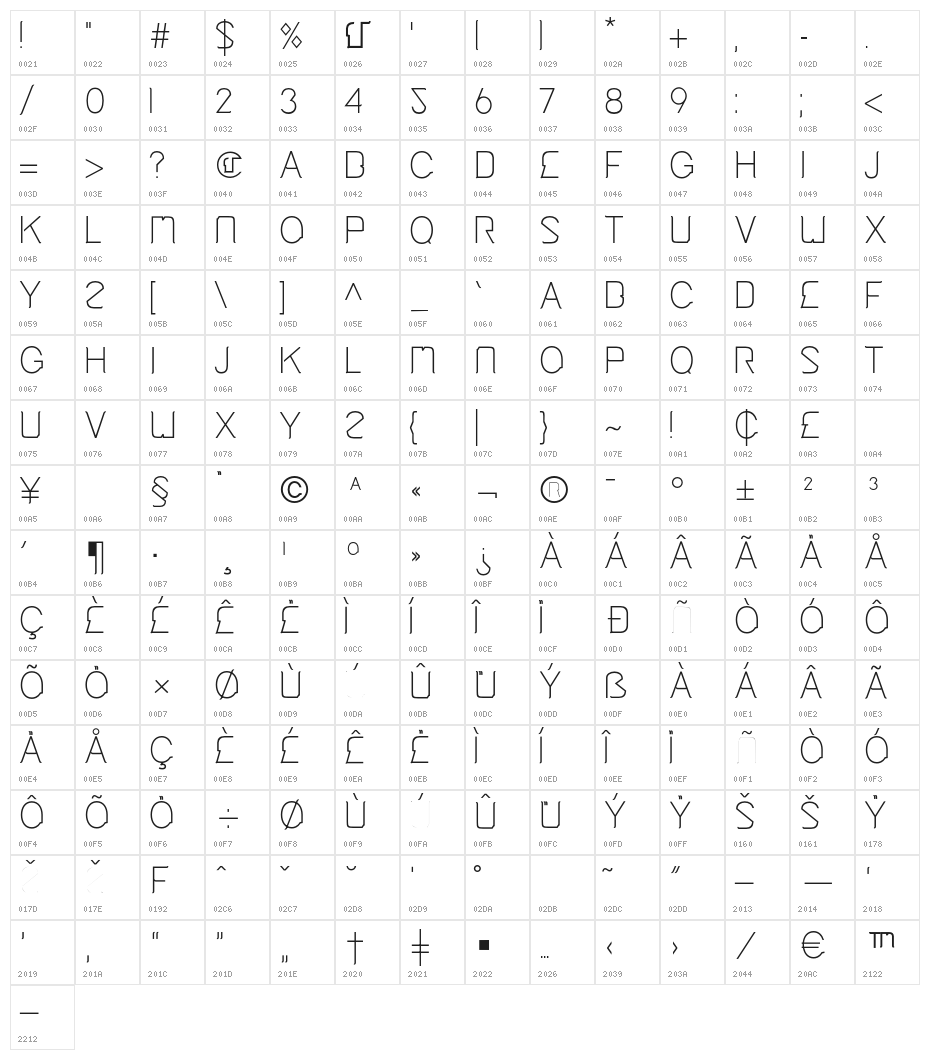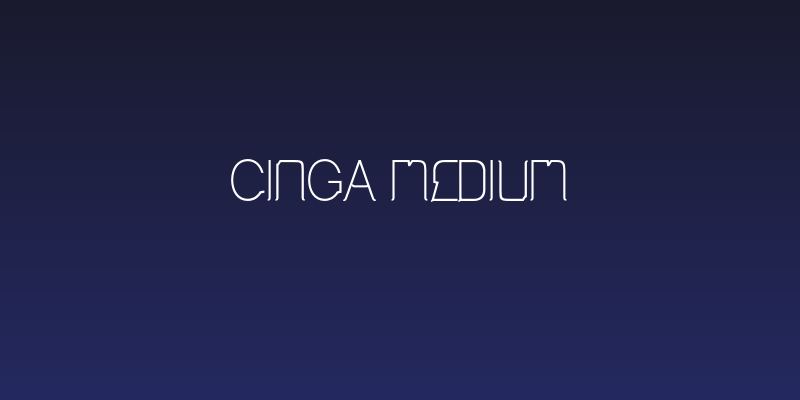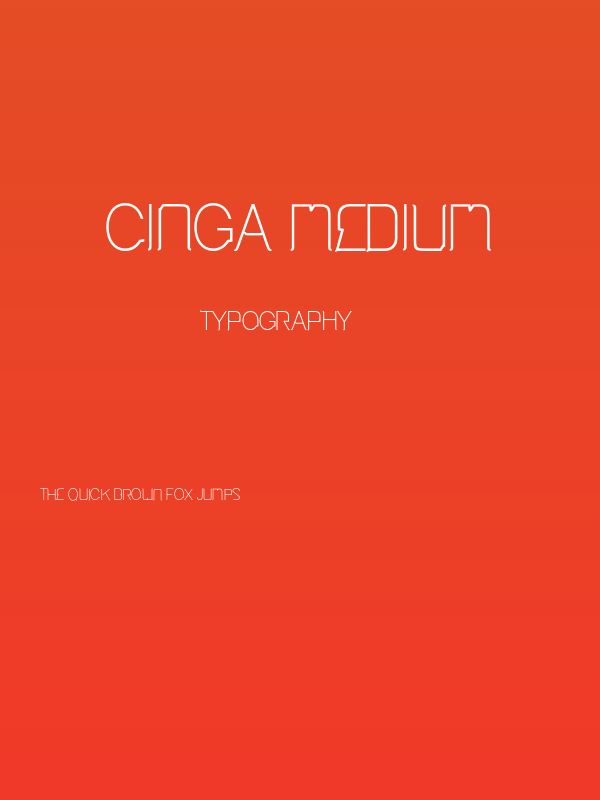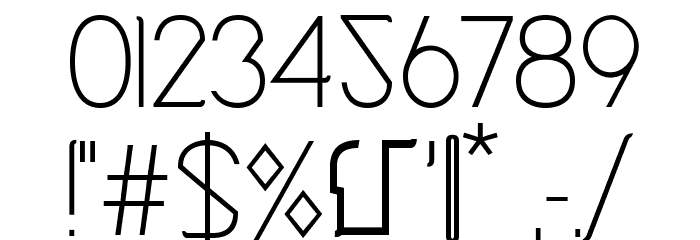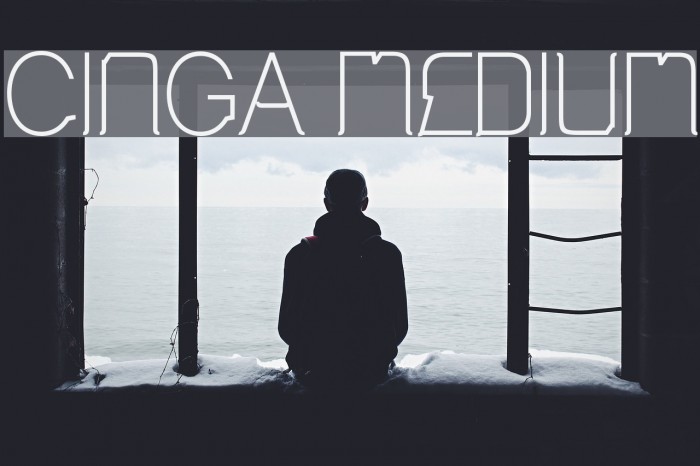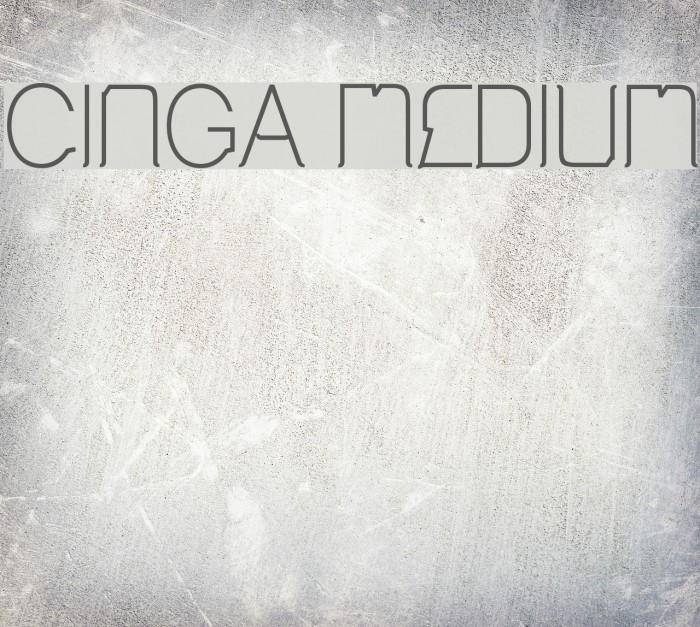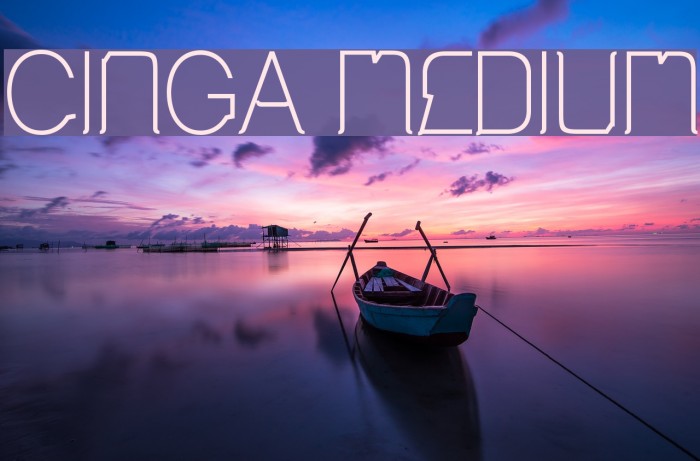
Cinga Medium Font
Cinga Medium Description
This font features a modern, geometric design with clean lines and a minimalist aesthetic. The characters are constructed with a consistent stroke width, giving it a uniform appearance. The uppercase letters have a unique, futuristic style, with some characters incorporating unexpected angles and curves, such as the 'E' and 'F'. The lowercase letters maintain the geometric theme, offering a cohesive look across the alphabet. Numbers are similarly styled, with a sleek and contemporary feel. Special characters are included, matching the overall design ethos. This font is ideal for projects that require a modern and innovative touch.
| Proposed Projects | Ideal for branding, tech-related designs, modern posters, and innovative product packaging. |